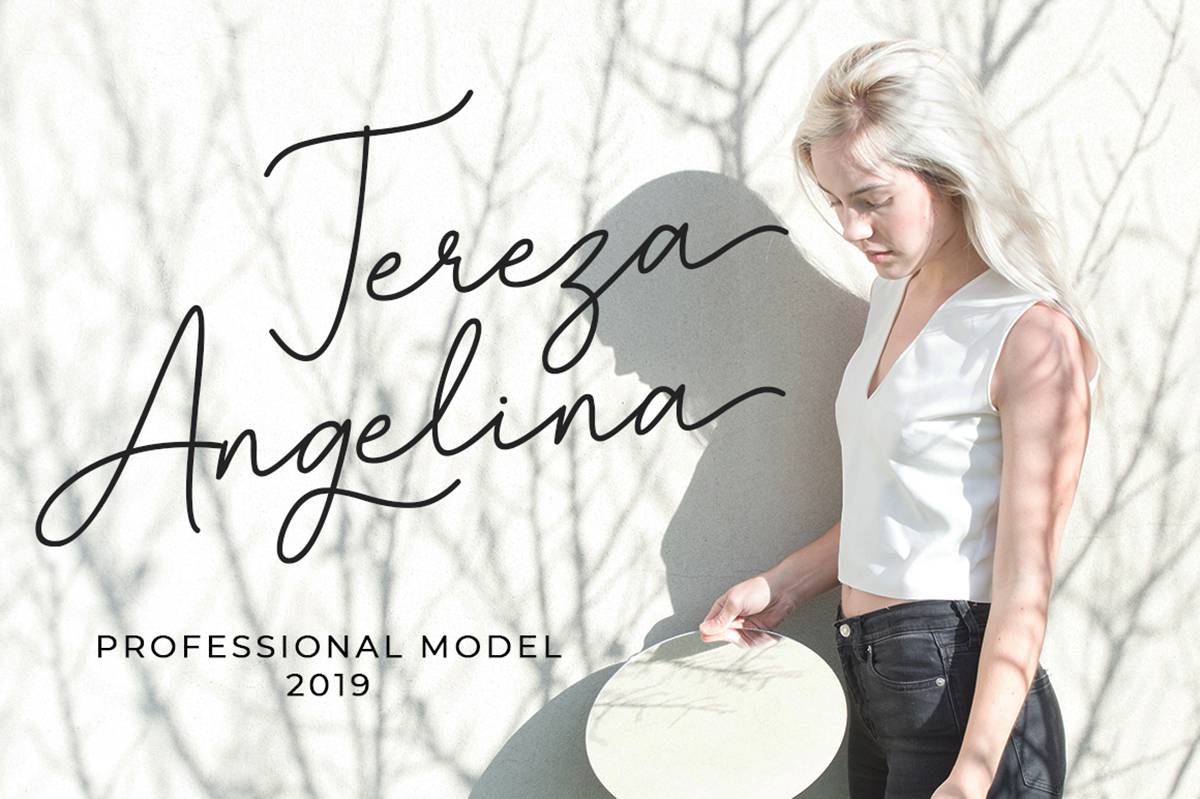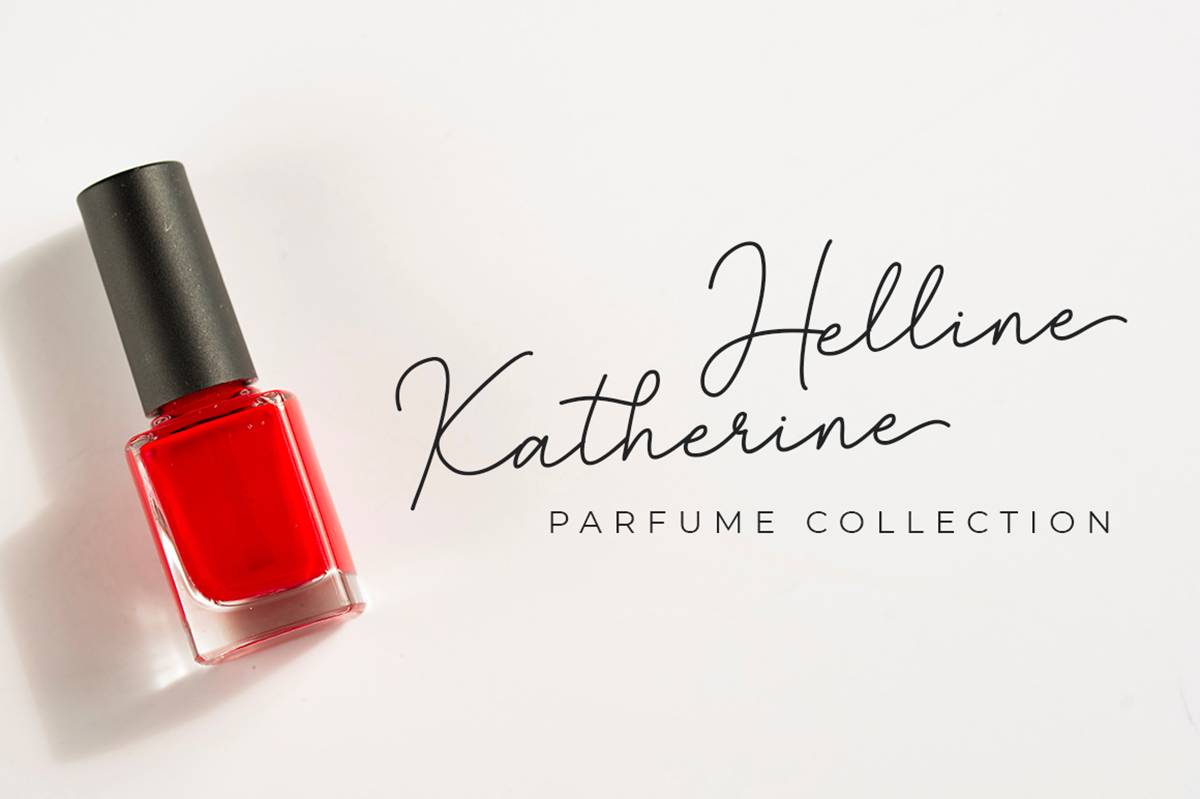
Angellita is a delicate and elegant script font featuring thin, flowing strokes with a handwritten, cursive feel. Its tall x-height and graceful letterforms give it a refined, airy appearance, making it ideal for feminine branding, invitations, and stylish editorial uses. The font's light weight and smooth connections convey sophistication and charm, perfect for designs that seek a personal, elegant touch.
Angellita Font
About Angellita Font